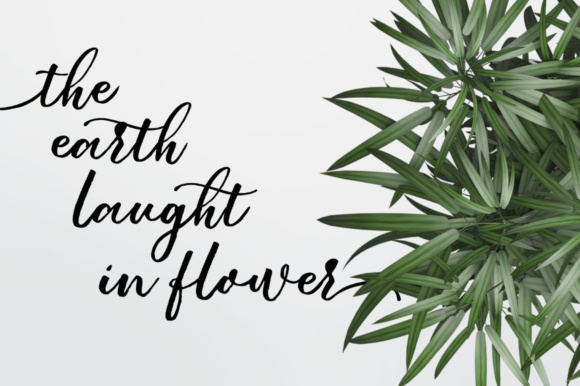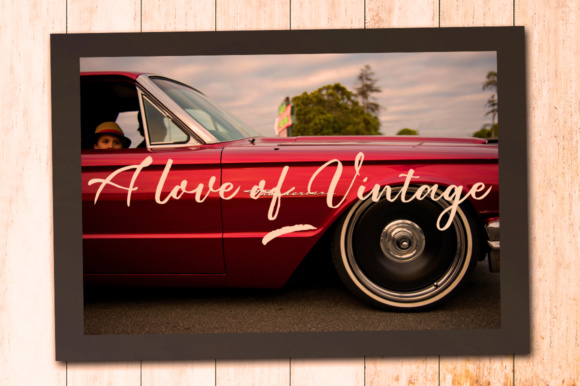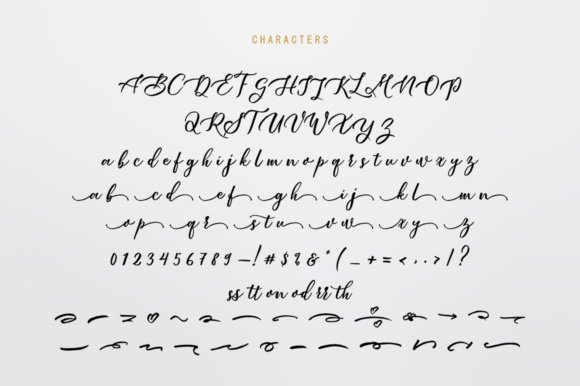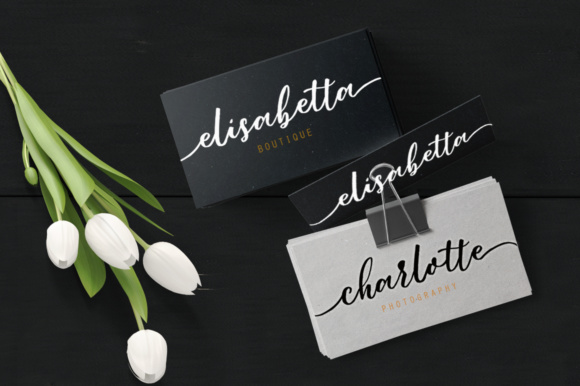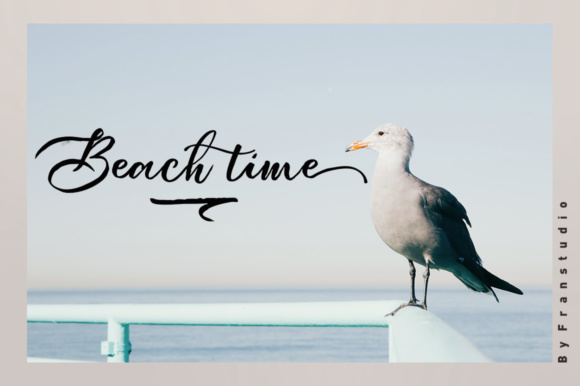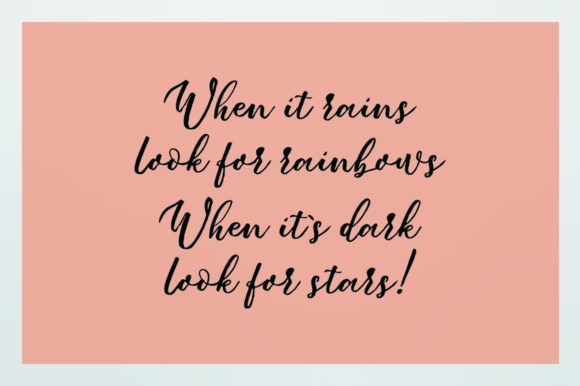
The Break Dance Font: Elevate Your Design with Elegance
Ah, the elusive perfect font. You know, that one design element that can make or break your project. I recall working on a wedding invitation design, striving for that classic yet modern look, when I stumbled upon the Break Dance font. It was like a breath of fresh air – smooth lines, elegant vibes, and a touch of sophistication. In this article, we’ll dive into the world of Break Dance, exploring its features, uses, and some helpful tips on how to make the most of this beautiful font.
- ✅ Smooth lines and a varying baseline give Break Dance a unique, elegant feel
- ✅ Perfect for headings, signatures, logos, wedding invitations, and more
- ✅ Works well for both digital and print designs
- ✅ Highly versatile and can be used for various design projects
- ⚠️ May not be suitable for body text due to its calligraphic nature
- Experiment with OpenType features, such as stylistic alternates, to add some flair to your design
While the origins of Break Dance are unclear, it’s easy to imagine a designer inspired by the world of dance and movement. Perhaps they sought to capture the fluidity and elegance of a well-choreographed routine in a font. Break Dance’s smooth lines and varying baseline evoke the feeling of a dancer gliding across the floor.
Q: What type of projects is Break Dance best suited for?
A: Break Dance is perfect for designs that require a touch of elegance and sophistication, such as wedding invitations, logos, and headings.
Q: Can I use Break Dance for body text?
A: While Break Dance is a beautiful font, it’s not ideal for body text due to its calligraphic nature. It’s better suited for headings and titles.
Q: Does Break Dance support OpenType features?
A: Yes, Break Dance supports OpenType features, including stylistic alternates and glyphs. Experiment with these features to add some flair to your design.